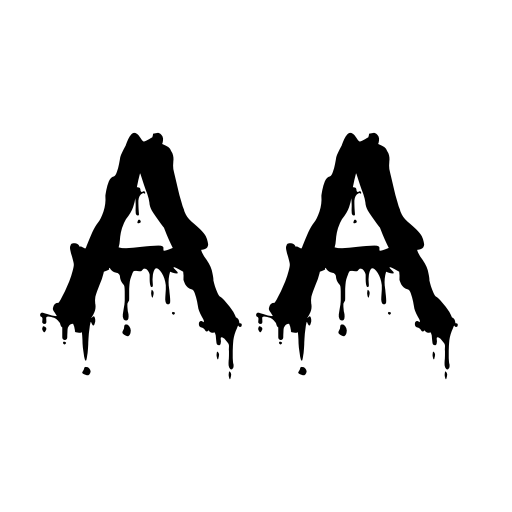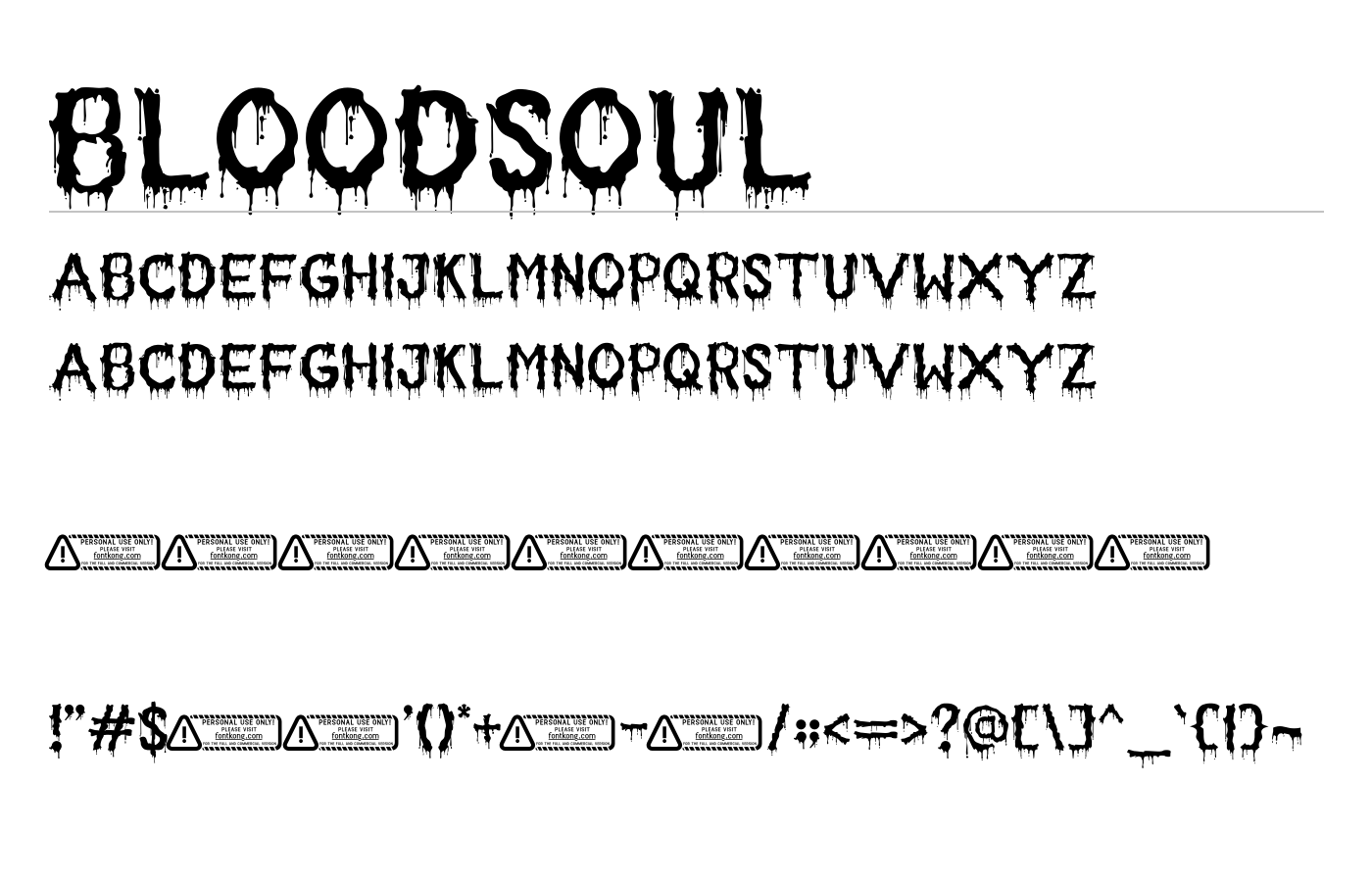
Bloodsoul is a bold, dripping display font that evokes a dark and eerie atmosphere, perfect for horror or gothic themes. Its all-uppercase letters feature irregular edges with a wet, melting effect, creating a dramatic and intense visual impact. This font works best in headlines, posters, and branding that aims to convey mystery, fear, or a haunting mood.
Bloodsoul Font
About Bloodsoul Font